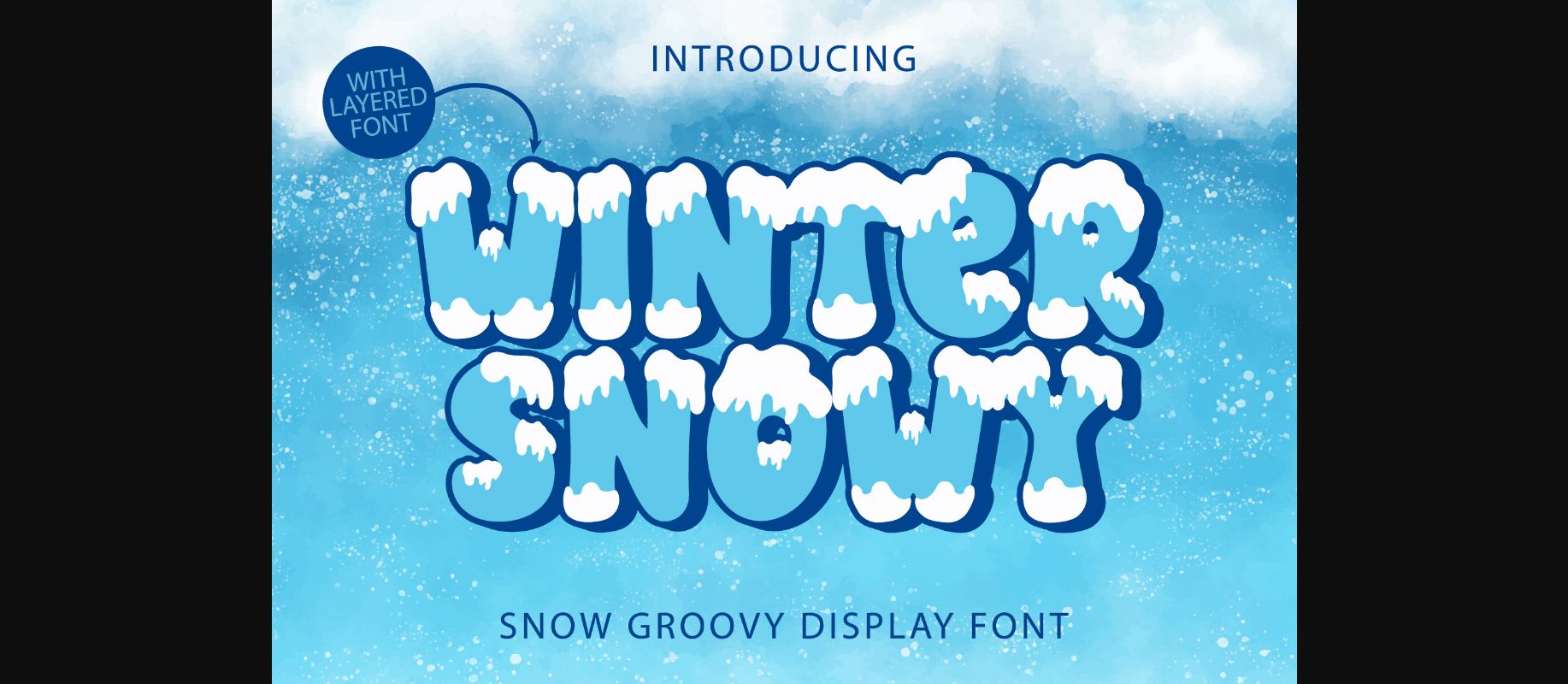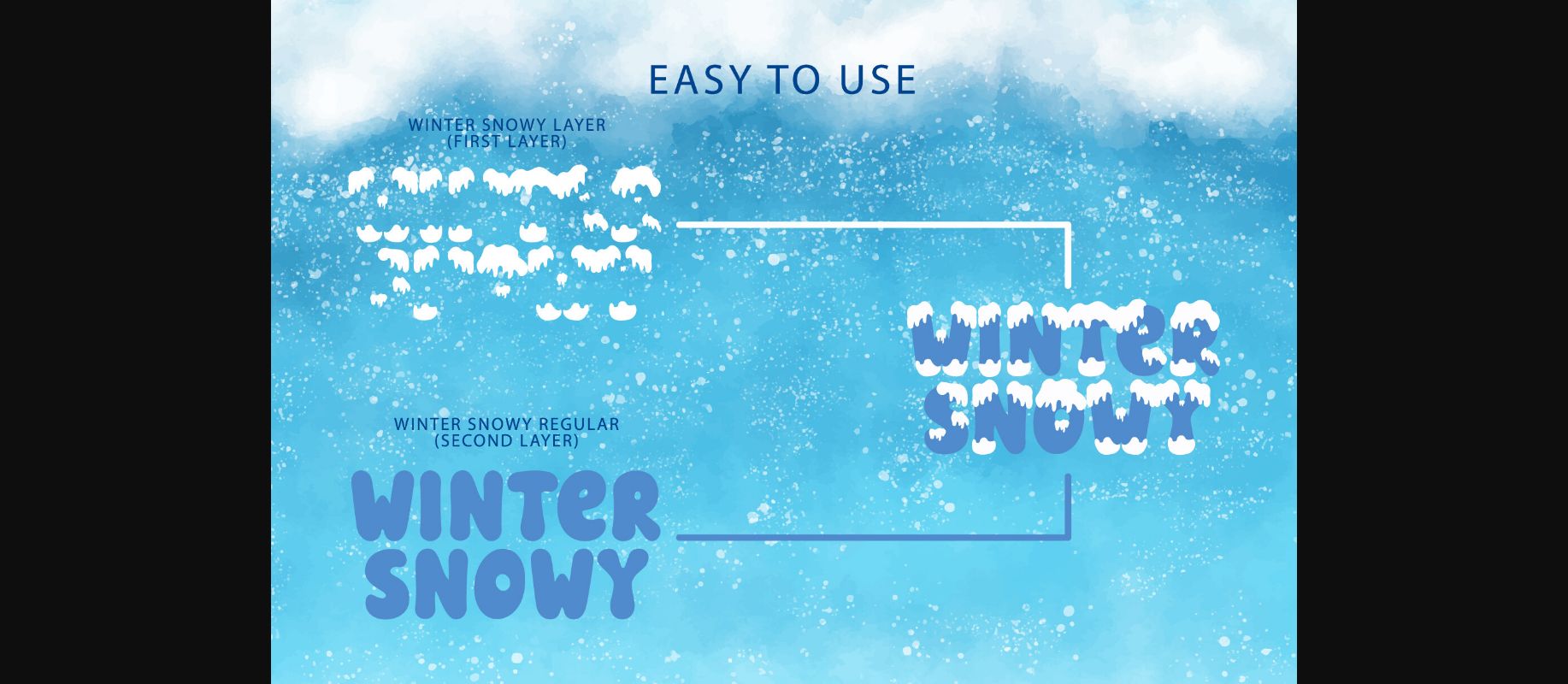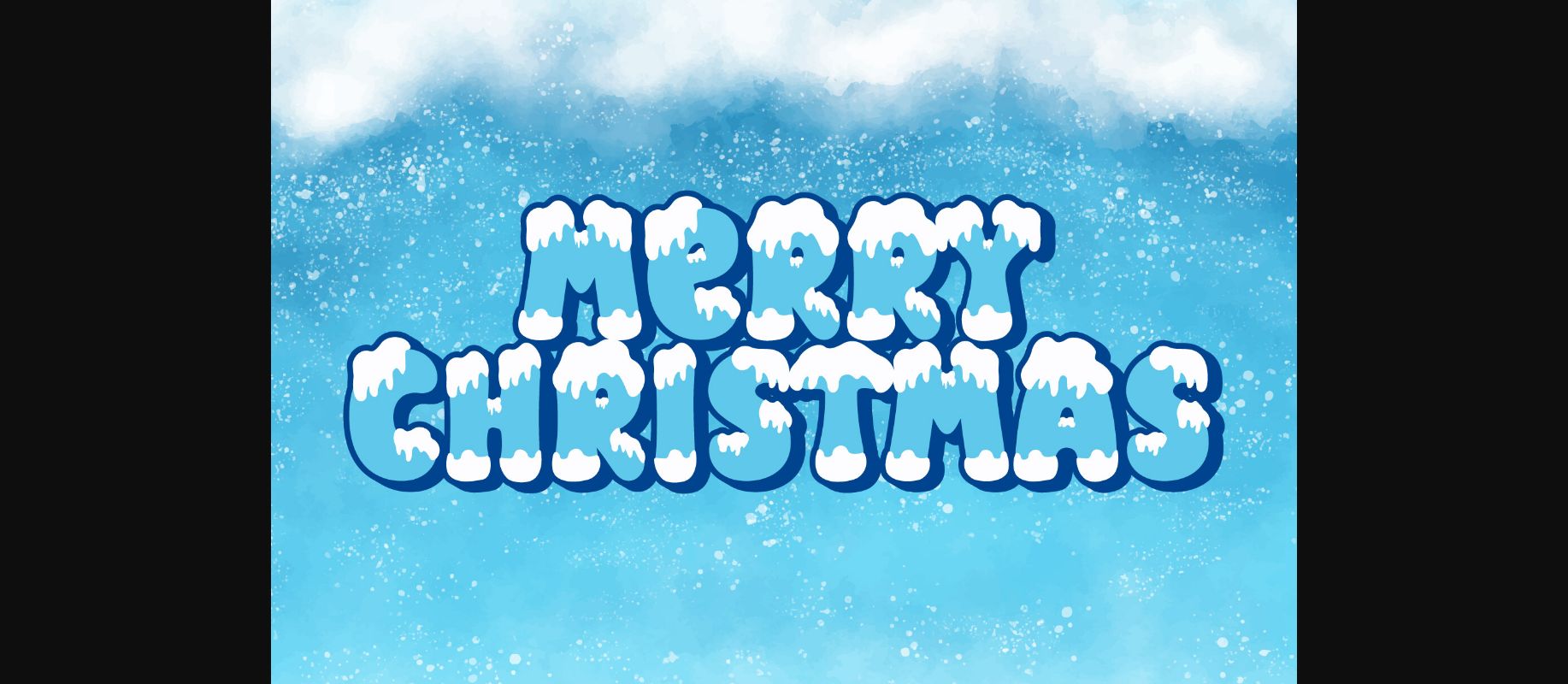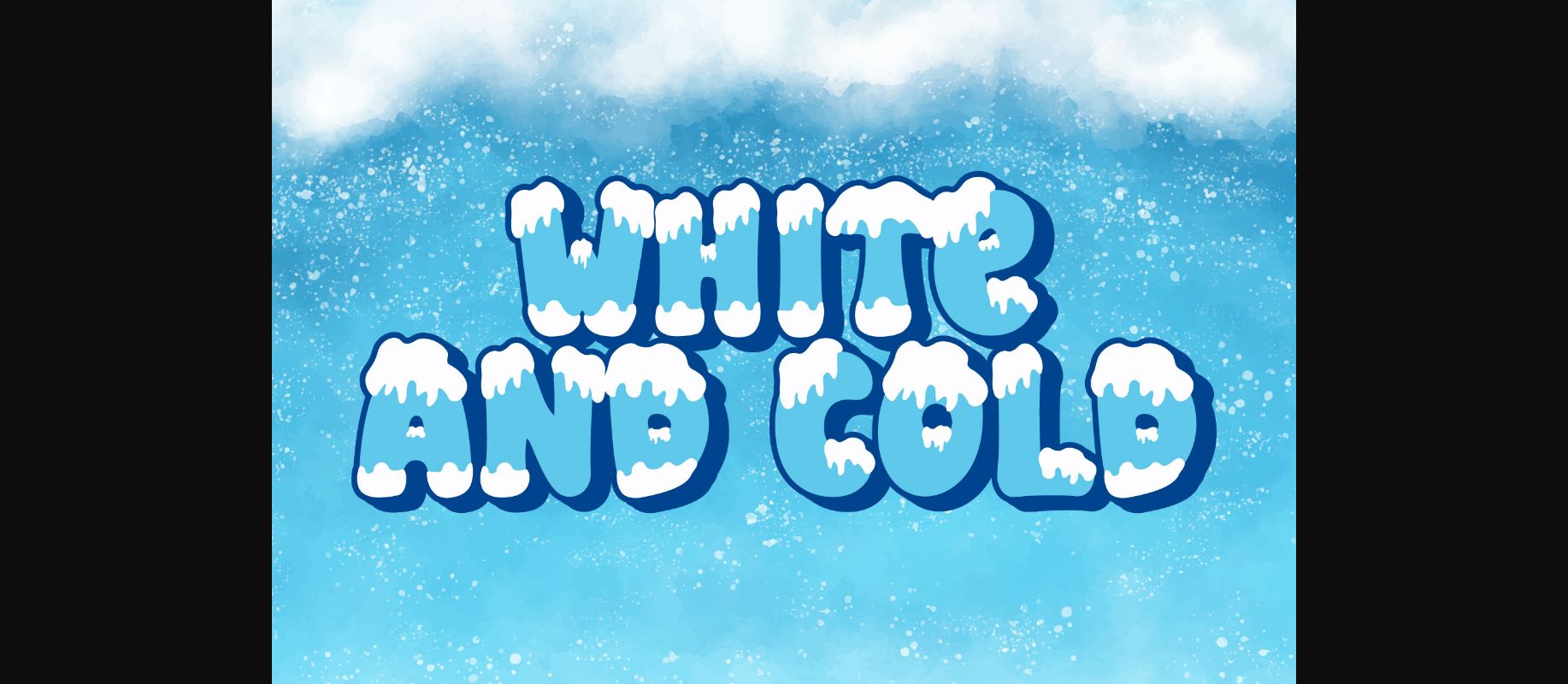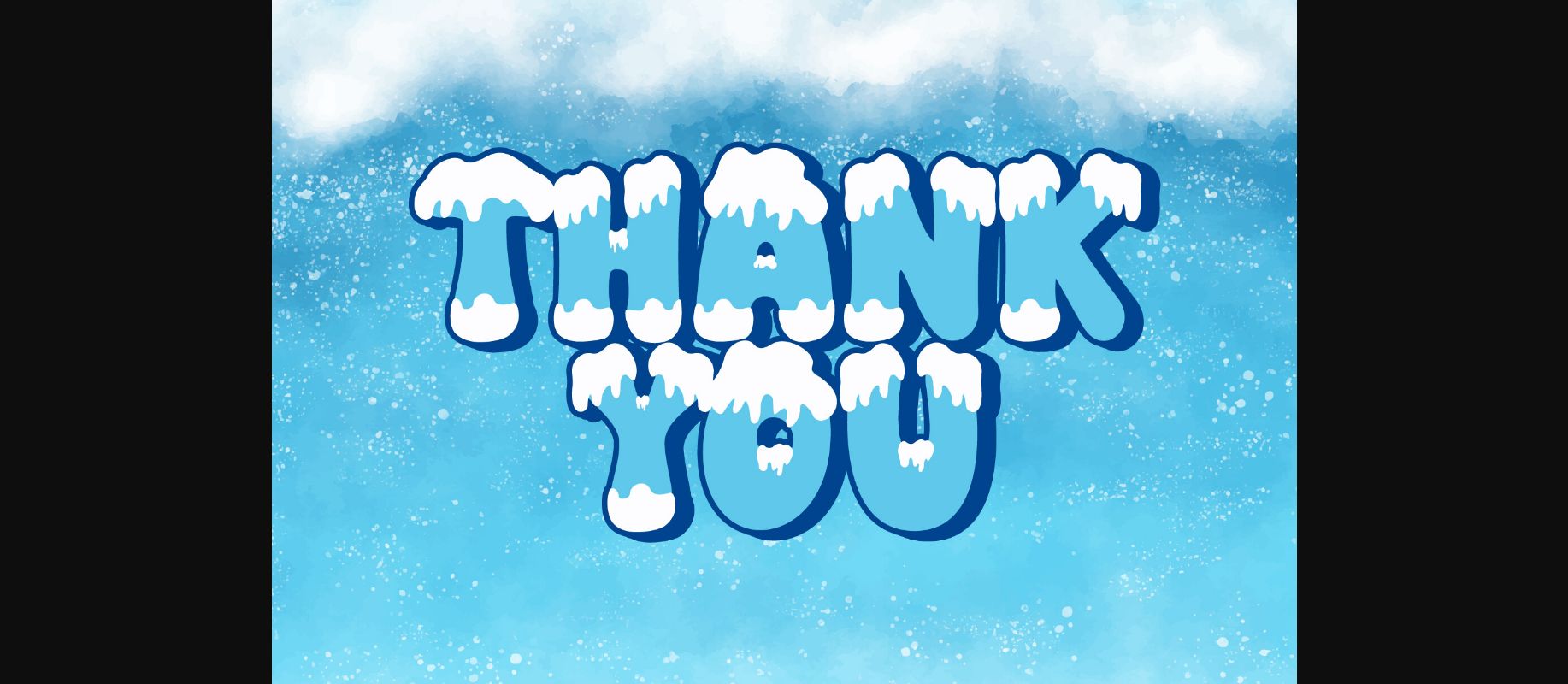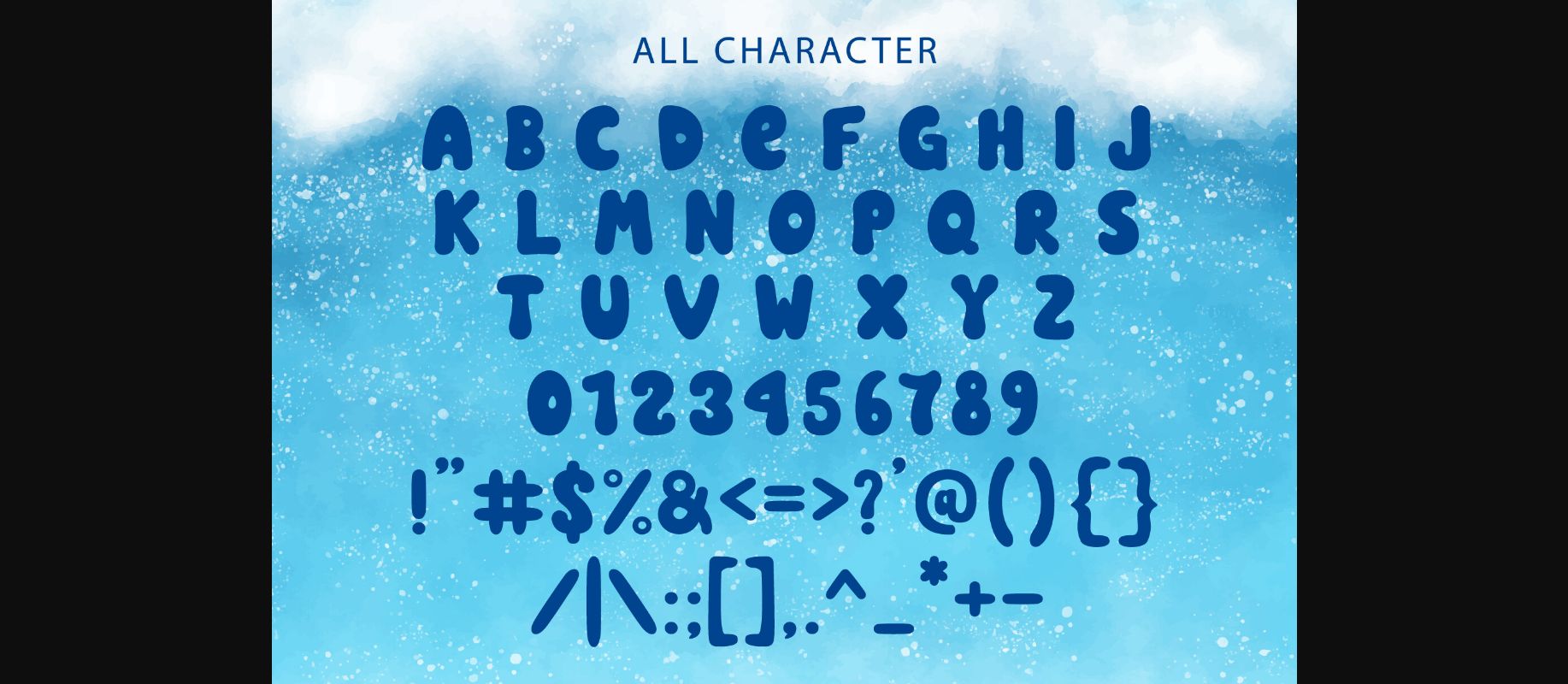
Winter Snowy Font
About Winter Snowy Font
Winter Snowy is a groovy bold display font. This font is inspired by snow and winter, which makes it suitable for creating cute holiday t-shirts, stickers, cover books, children’s books, social media posts, and much more! This is a layered font that can make it easier for you to design unique projects.